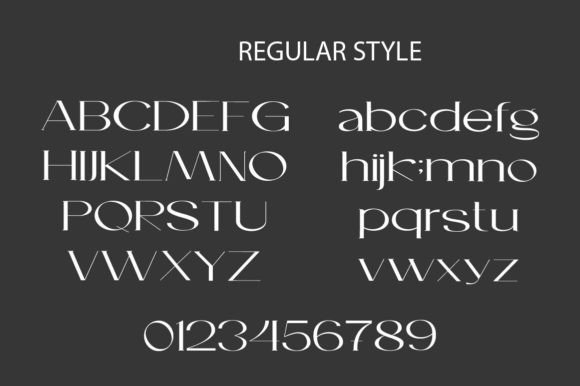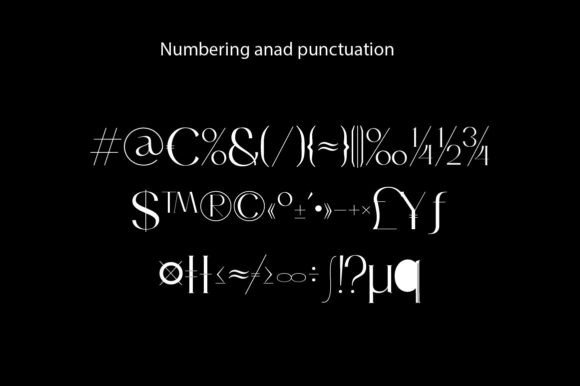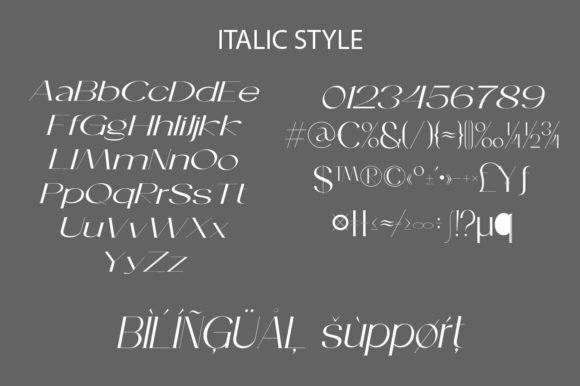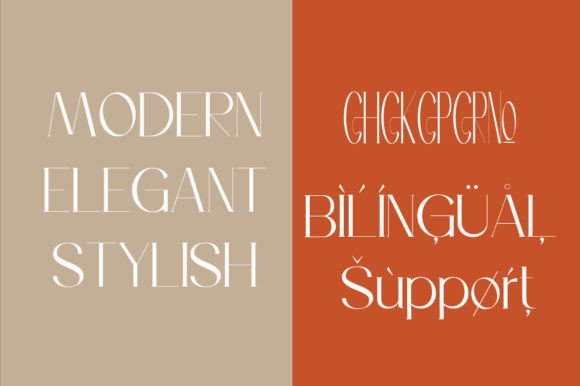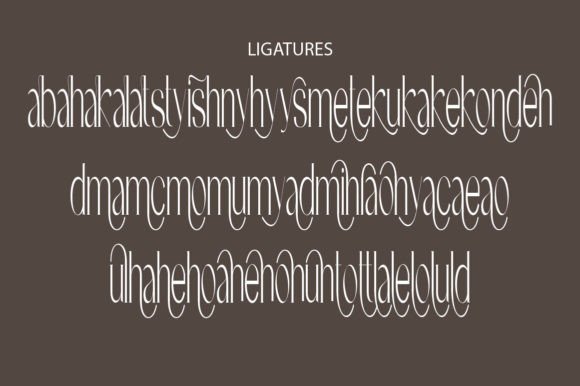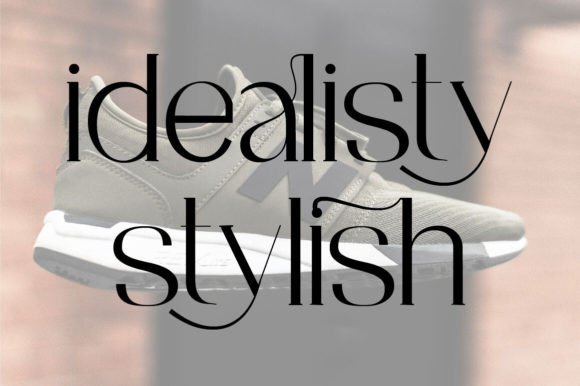
Discover the Timeless Elegance of Berandal Font: Elevate Your Designs with a Classic Serif
Introduction
Berandal font is a classic and elegant serif font with a modern twist. With its decent readability, Berandal is perfect for both displays as well as body text, to form unique and elegant typography designs. Make your designs more modern and professional with Berandal font. It is perfectly suitable for creating nostalgic yet still clean and elegant designs such as logos, packaging, editorial, and more.
The Characteristics of Berandal Font
Berandal font boasts a range of characteristics that make it an ideal choice for designers. Its serif design provides a classic and sophisticated look, while its modern twist ensures it remains fresh and contemporary. The font’s decent readability makes it perfect for use in both display text and body text, allowing designers to create unique and elegant typography designs.
Versatility of Berandal Font
One of the key benefits of Berandal font is its versatility. It can be used for a wide range of design projects, from logos and packaging to editorial and more. Its classic and elegant design makes it perfect for creating nostalgic designs that still feel clean and modern. Whether you’re looking to create a sophisticated brand identity or a beautiful editorial design, Berandal font is an excellent choice.
Why Choose Berandal Font?
So, why choose Berandal font for your design projects? Here are just a few reasons:
• Classic and Elegant Design: Berandal font boasts a classic and elegant design that is perfect for creating sophisticated brand identities and editorial designs.
• Modern Twist: The font’s modern twist ensures it remains fresh and contemporary, making it perfect for designers who want to create modern and professional designs.
• Decent Readability: Berandal font has decent readability, making it perfect for use in both display text and body text.
• Versatility: The font can be used for a wide range of design projects, from logos and packaging to editorial and more.
How to Use Berandal Font in Your Designs
Using Berandal font in your designs is easy. Here are a few tips to get you started:
• Pair it with Other Fonts: Berandal font pairs well with other fonts, making it easy to create unique and interesting typography designs.
• Experiment with Different Sizes: The font’s decent readability makes it perfect for use in both display text and body text. Experiment with different sizes to create visual interest.
• Use it for Headings and Body Text: Berandal font is perfect for use in both headings and body text. Use it to create a cohesive and elegant design.
In conclusion, Berandal font is a classic and elegant serif font with a modern twist. Its decent readability and versatility make it perfect for use in a wide range of design projects, from logos and packaging to editorial and more. Whether you’re a designer or crafter, Berandal font is an excellent choice for anyone looking to create sophisticated and elegant designs.
So why not give Berandal font a try? With its timeless elegance and modern twist, it’s the perfect addition to any design project.